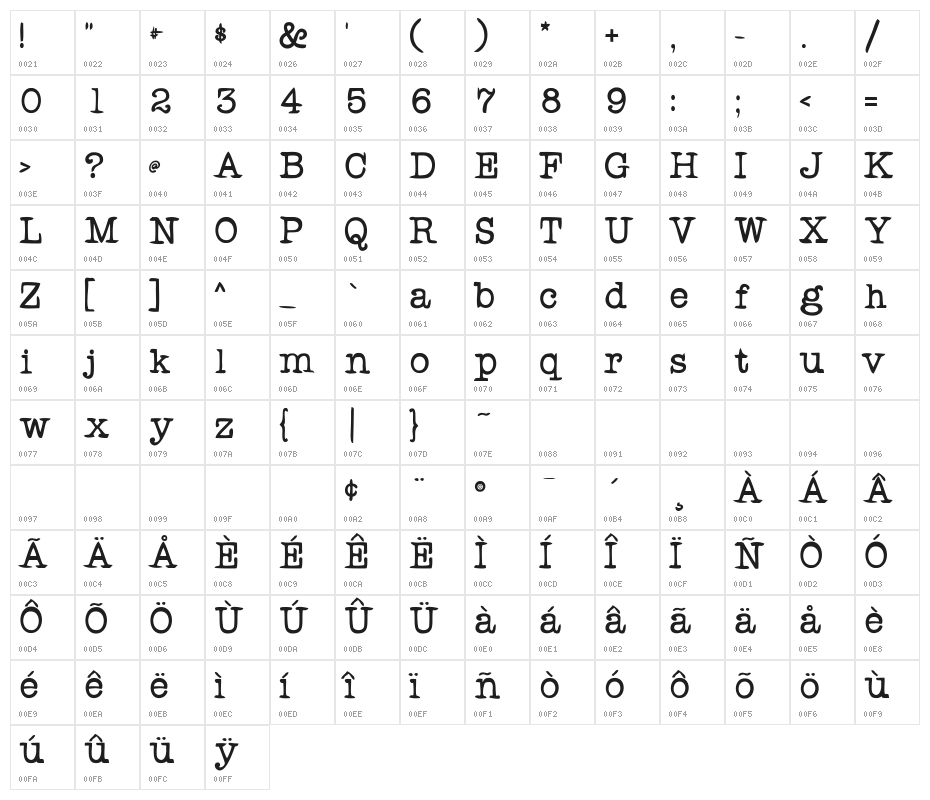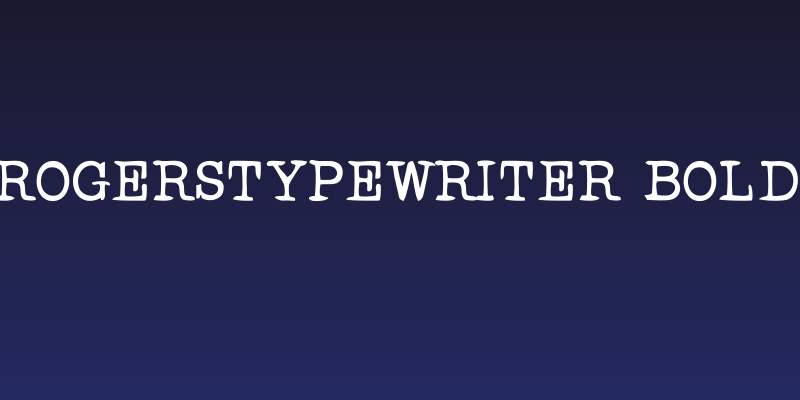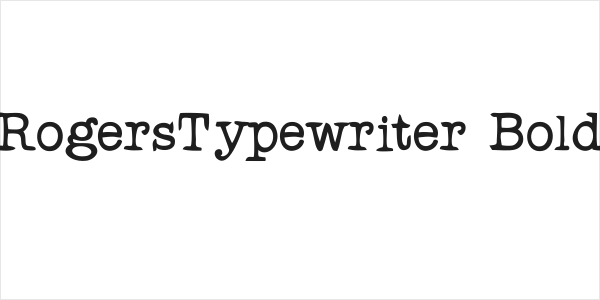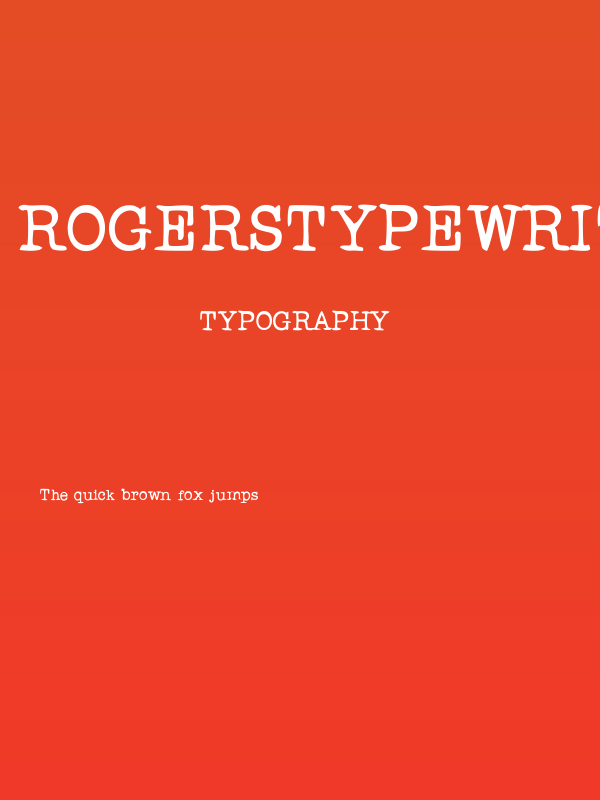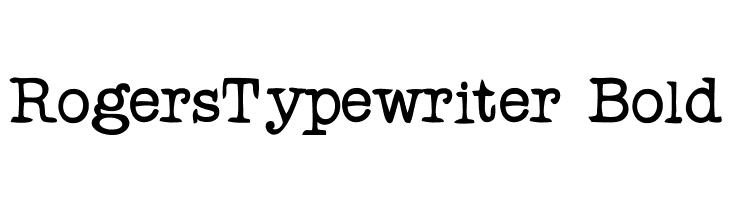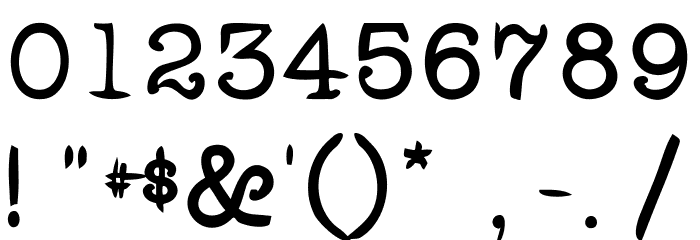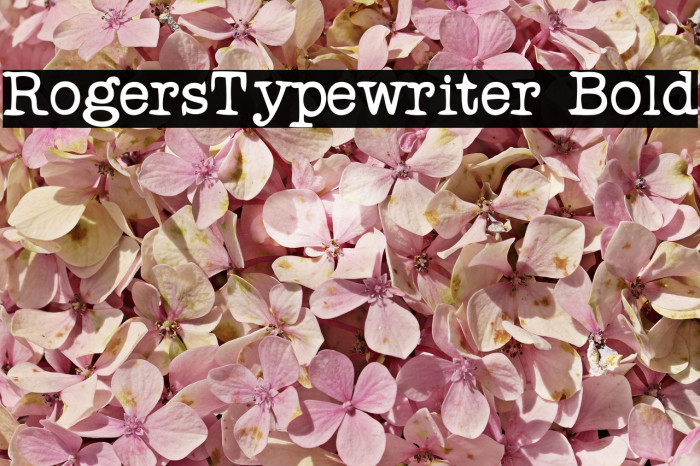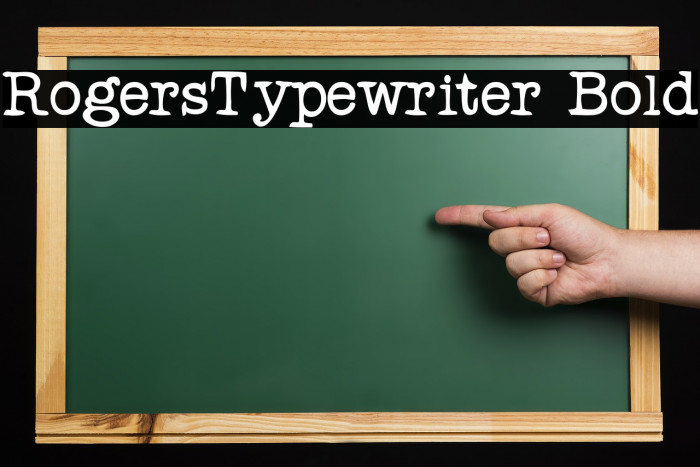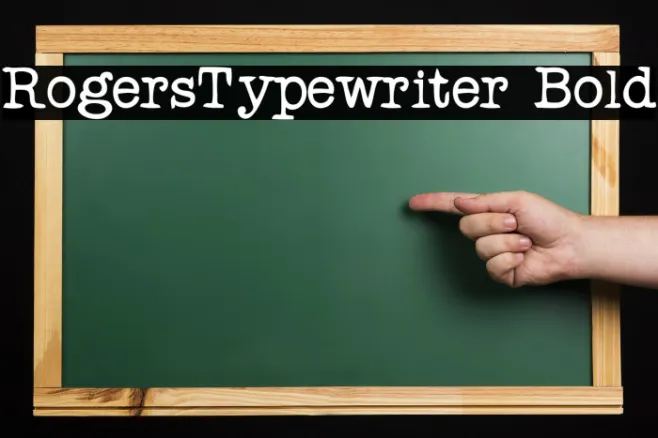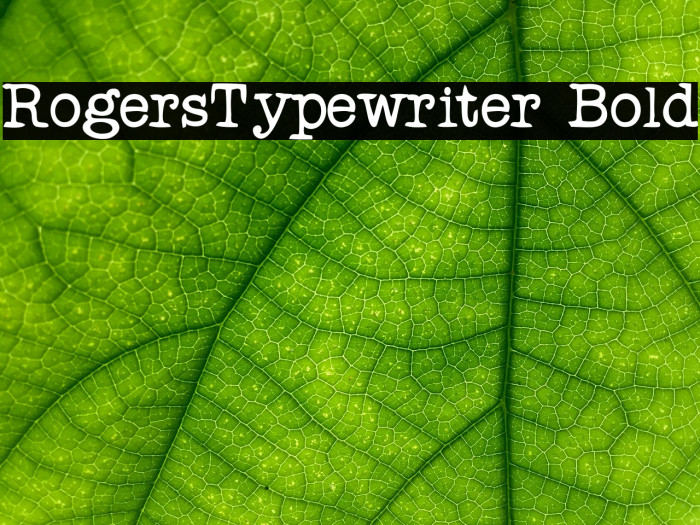
RogersTypewriter Bold Font
RogersTypewriter Bold Description
This typeface exudes a classic typewriter aesthetic, characterized by its monospaced letterforms and distinctive slab serif elements. Each character is evenly spaced, reminiscent of traditional typewriter output, providing a nostalgic yet functional appearance. The bold weight of the font enhances its readability and impact, making it suitable for both display and text purposes. The uppercase letters are robust and commanding, while the lowercase letters maintain a consistent and harmonious flow. Numerals and special characters are designed with the same attention to detail, ensuring uniformity across all text elements. The overall style is both vintage and utilitarian, capturing the essence of early 20th-century typewriting machines.
| Proposed Projects | Ideal for retro-themed designs, typewriter-style documents, coding displays, and creative projects requiring a vintage touch. |